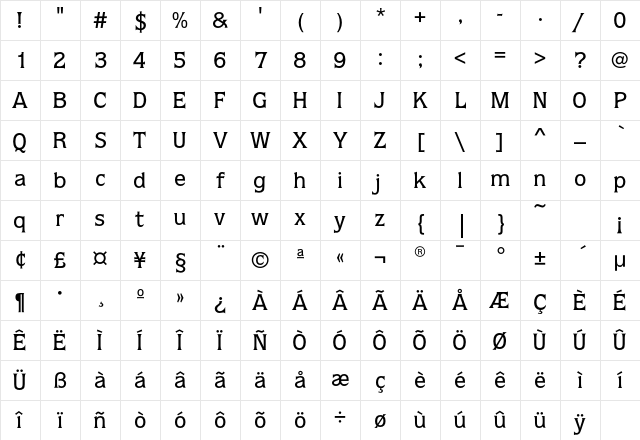
QuorumEF-Medium Regular
Design Context for QuorumEF-Medium
QuorumEF-Medium is a composed and adaptable typeface that performs quietly and consistently across a wide range of design contexts.